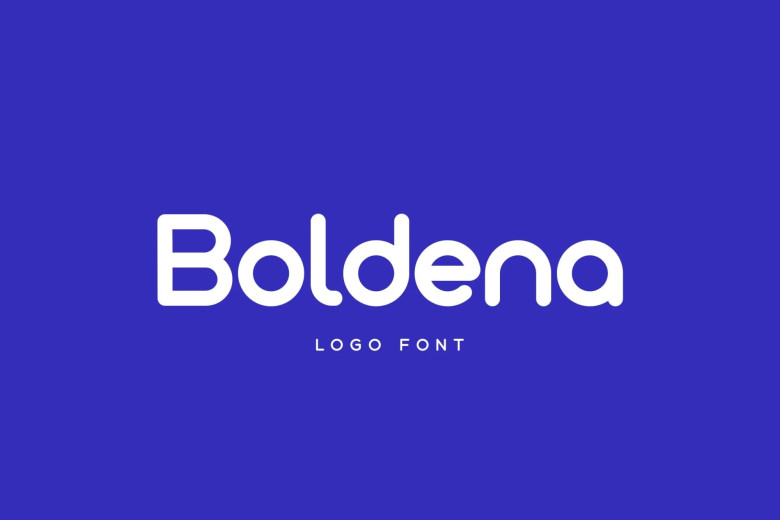
Boldena Font
Boldena Font has playful and organic feels to its hand-drawn charm while still being incredibly legible thanks to its simple shapes and high x-height. This font is ideal for a military or sports-themed design project. It is clean and neat to use by supports up to 66 languages for additional accents.
Boldena Sans Logo Font